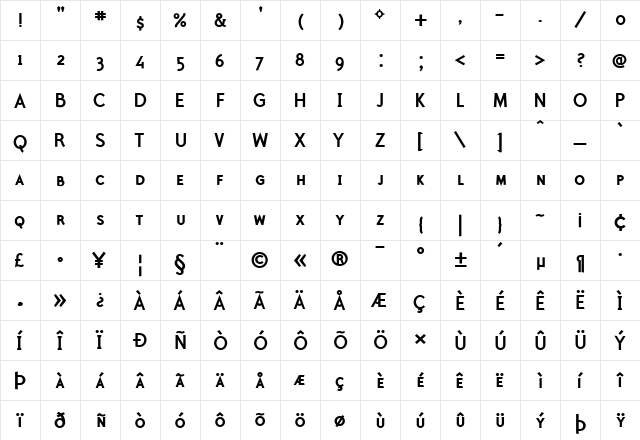
Polymer Caps Bold
Design Context for Polymer Caps Typeface
Polymer Caps is a composed and adaptable typeface that performs quietly and consistently across a wide range of design contexts. The heavy weight commands attention and anchors typographic hierarchies.